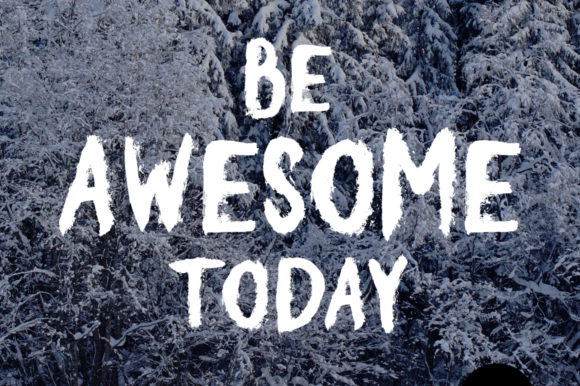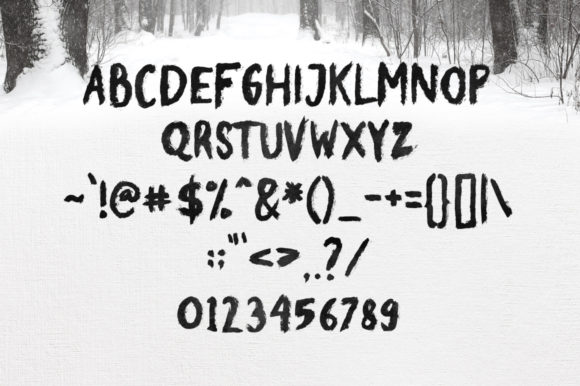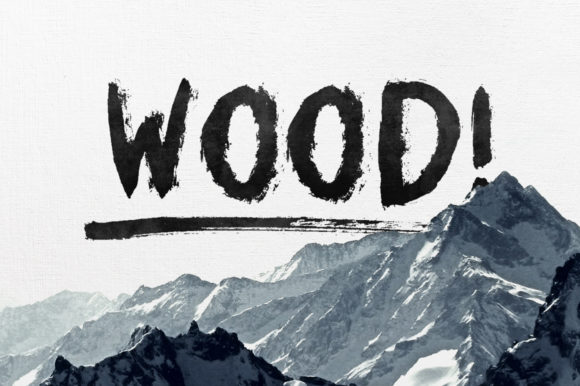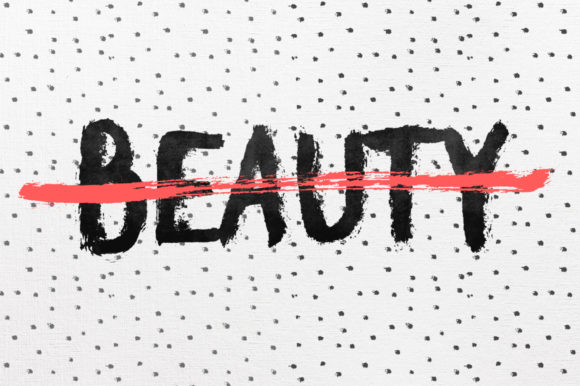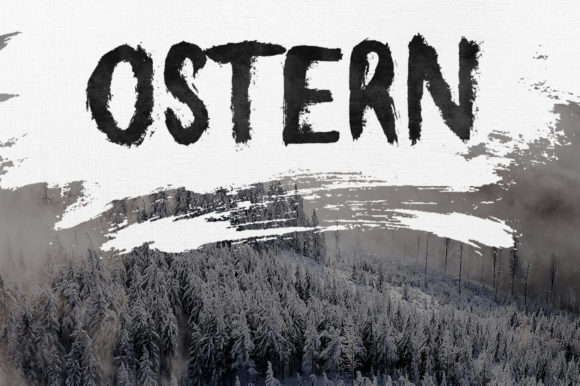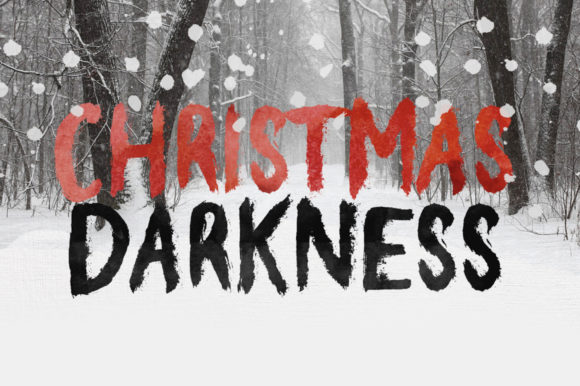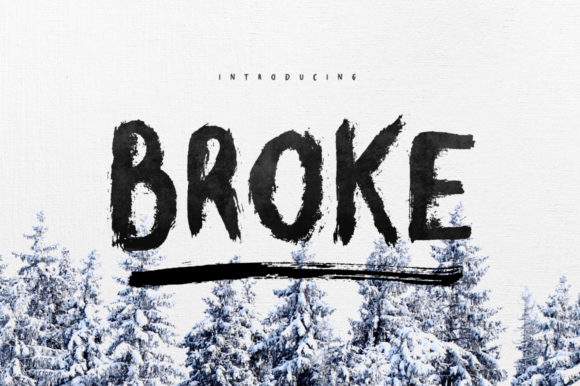
The Broke Font: A Dramatic Display Font for Creative Projects
Have you ever been working on a design project, and suddenly, you’re stuck on finding the perfect font? I recall a recent experience where I was tasked with creating a bold logo for a client’s new business. I scoured the internet for hours, but nothing seemed quite right. That was until I stumbled upon the Broke font. This dramatic display font, created with a bold brush pen, instantly caught my attention. Its powerful and messy vibe was exactly what I needed to bring my client’s vision to life.
An Honest Review of Broke Font
- ✨ Unique, hand-crafted feel that adds a touch of personality to any design
- ✅ Bold and eye-catching, making it perfect for logos, branding, and headings
- 💪 Highly versatile, suitable for a wide range of creative projects, from digital designs to print materials
- 🎨 Great for adding a touch of edginess or drama to your designs
While the Broke font is an excellent choice for many projects, there are a few things to keep in mind:
- 🤔 Limited use in body text, as its bold and expressive nature can be overwhelming for longer blocks of text
- ⚠️ May not be suitable for very small font sizes, as some details may get lost
The Backstory of Broke Font
The Broke font was designed with the intention of creating a bold, expressive font that captures the essence of raw creativity. Inspired by the imperfections of hand-drawn lettering, the font’s creator aimed to craft a font that would add a touch of personality to any design. Whether you’re a designer, crafter, or creative hobbyist, the Broke font is sure to inspire your next project.
Q: What type of projects is the Broke font best suited for?
A: The Broke font is ideal for logos, branding, headings, and other creative projects where a bold, eye-catching font is desired.
Q: Is the Broke font available in different styles or weights?
A: Currently, the Broke font is available in a single style, but its bold and expressive nature makes it versatile enough for a wide range of design applications.
Q: Can I use the Broke font for body text or longer blocks of text?
A: While the Broke font is not ideal for body text, it can be used for short paragraphs or captions. However, its bold and expressive nature may be overwhelming for longer blocks of text.